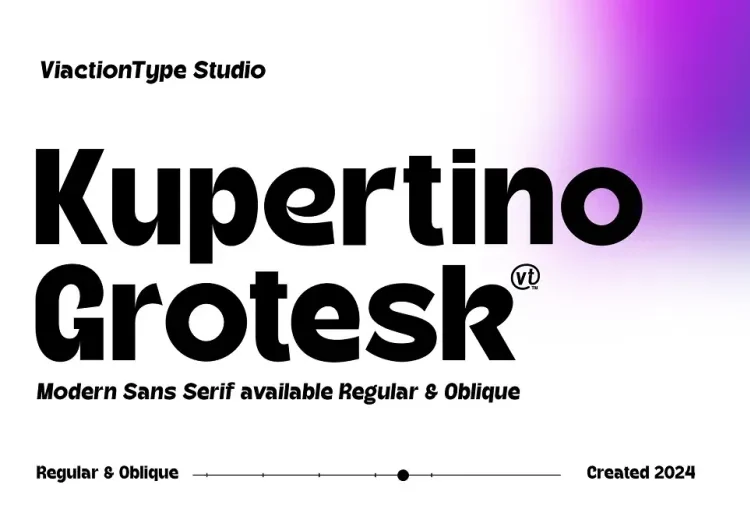
Kupertino Font
Kupertino Grotesk is a contemporary sans-serif typeface meticulously crafted to maximize legibility and modern aesthetic appeal. This font is available in two distinct styles: regular and oblique. The regular style offers a clean and straightforward appearance, ideal for body text and general design applications where clarity and simplicity are paramount. The oblique style, with its subtle slant, adds a touch of dynamism and sophistication, making it suitable for emphasis and highlighting key elements in your design.
Kupertino Grotesk is highly versatile and can be effectively used in a wide range of design projects, including web design, print media, branding, and advertising. Its legibility makes it a great choice for both digital and physical applications, ensuring that your text is clear and impactful. Whether you are designing a website, creating promotional materials, or developing corporate documents, Kupertino Grotesk provides a modern and professional touch to your work.
The font’s design focuses on clean lines and balanced proportions, enhancing its readability while maintaining a contemporary look. This makes Kupertino Grotesk a valuable addition to any designer’s toolkit, providing both functionality and style.